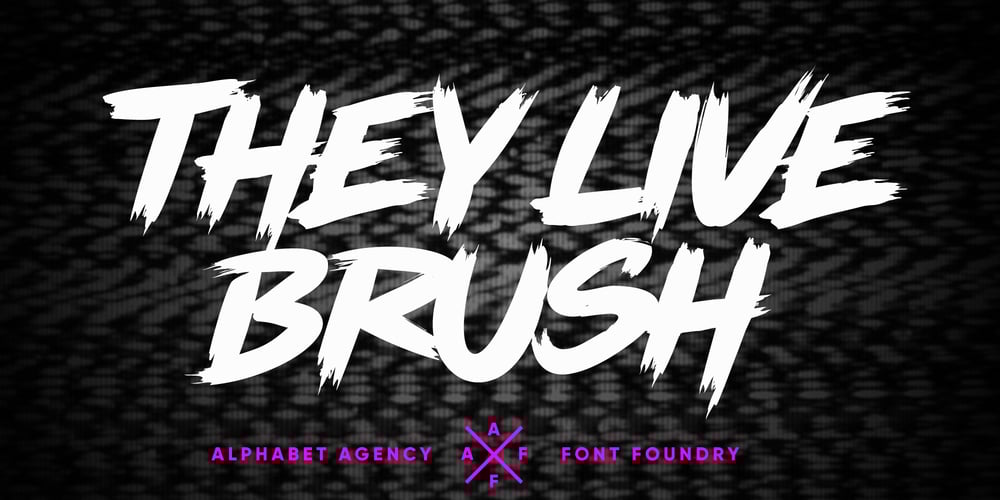
They Live Brush
They Live Brush font
They Live Brush Font Family was designed by Swinn Jonathan and published by Alphabet Agency. They Live Brush contains 1 styles and family package options. They Live Brush font is inspired by the 80’s cult classic movie They Live logo. The font is ideal for use in designs that you include a bold brush font in a cool way. The font has a graffiti feel that can allow you to express yourself with some attitude.The font is an all capital letters font. The font contains 128 characters.